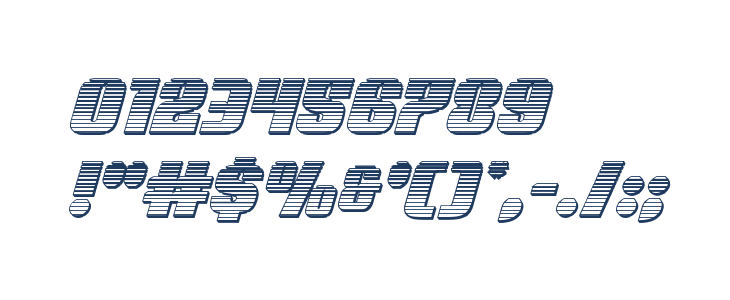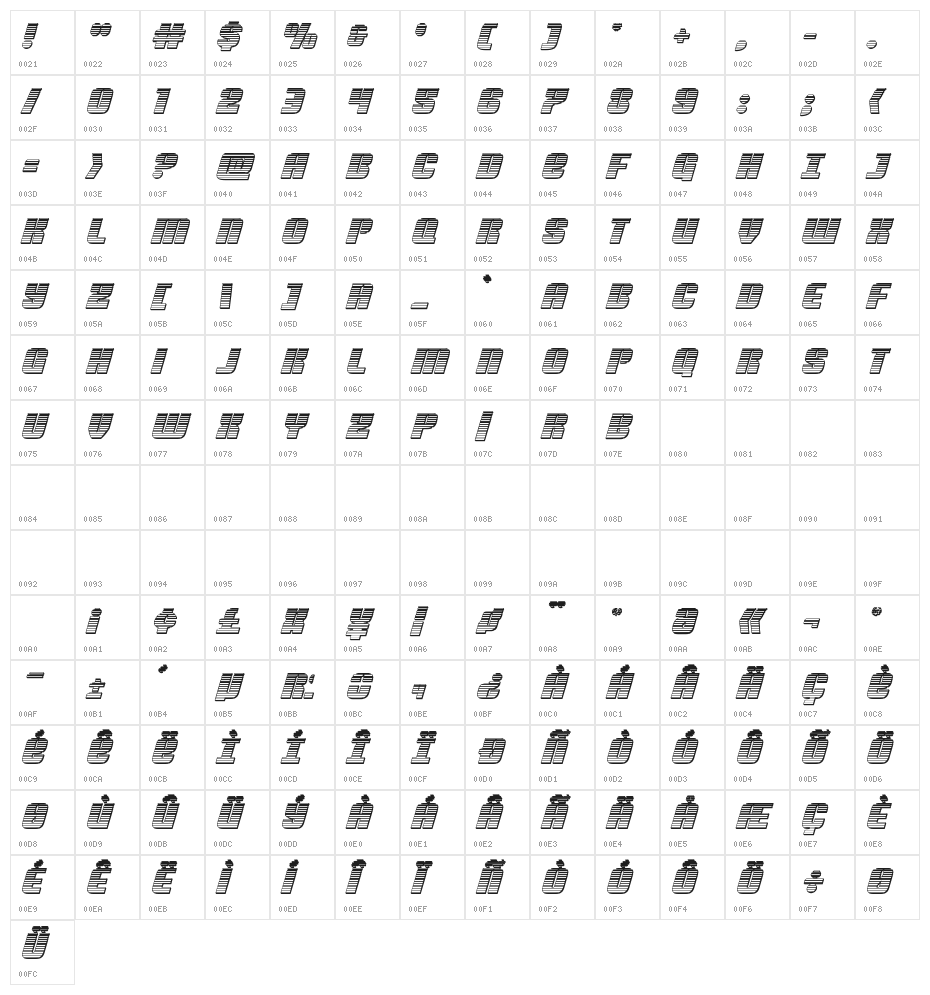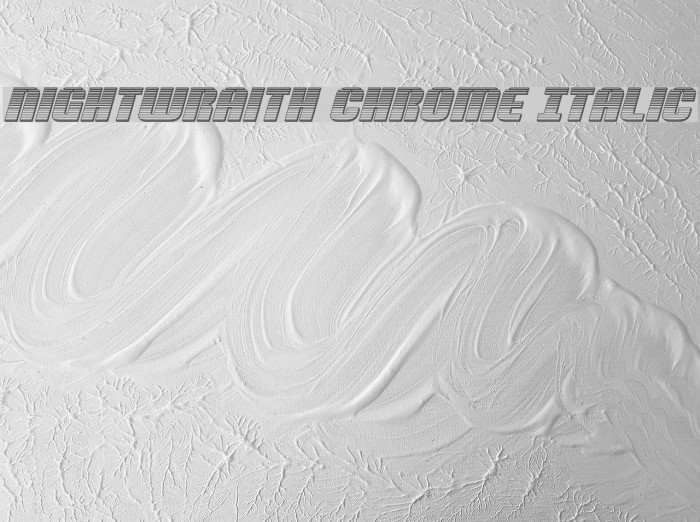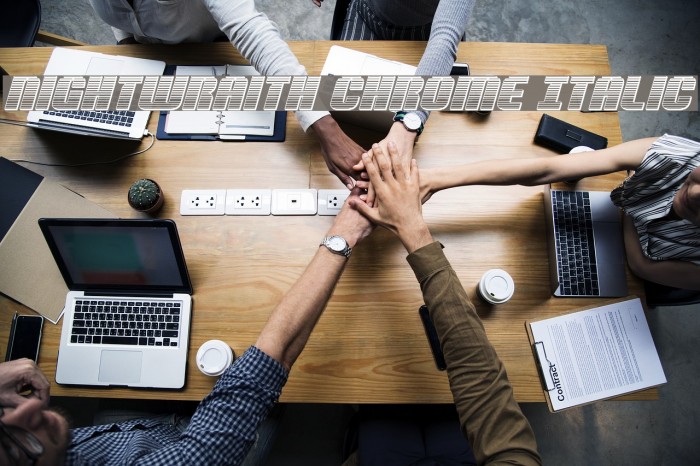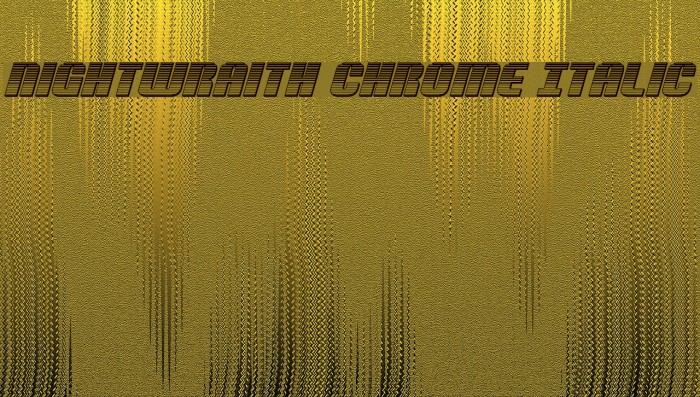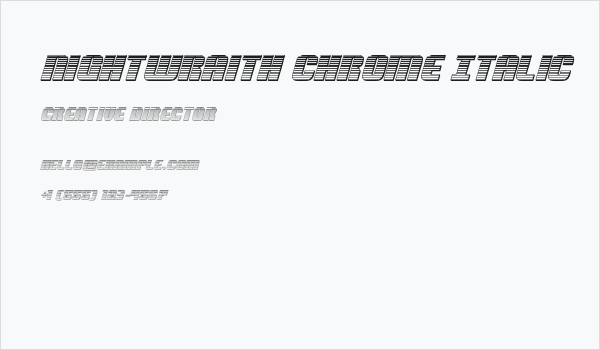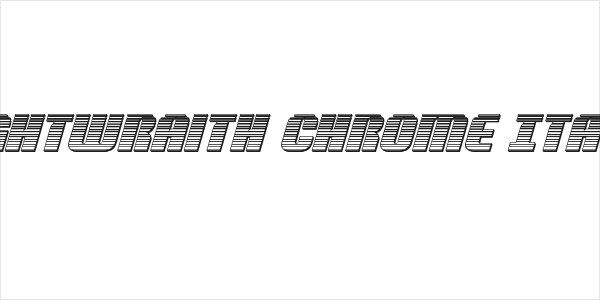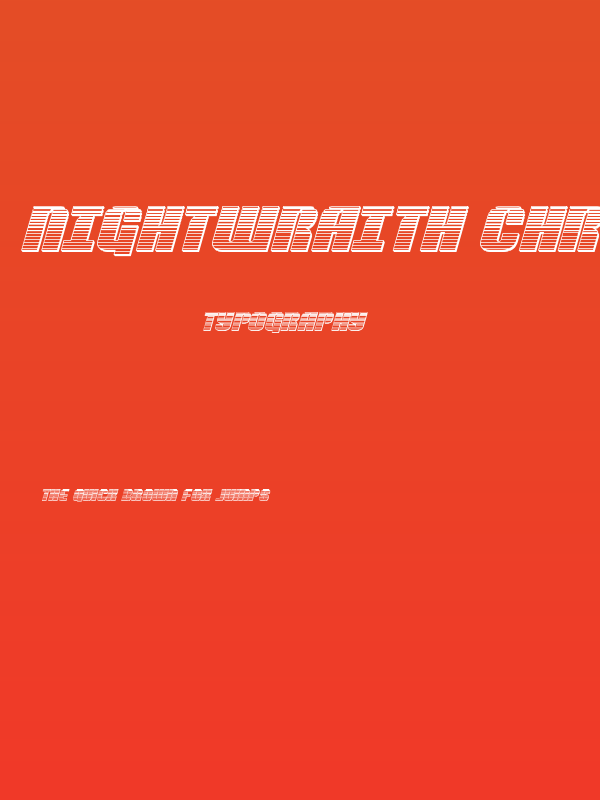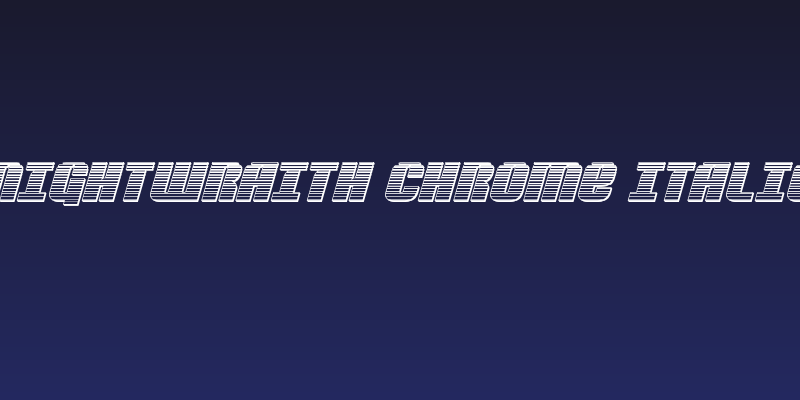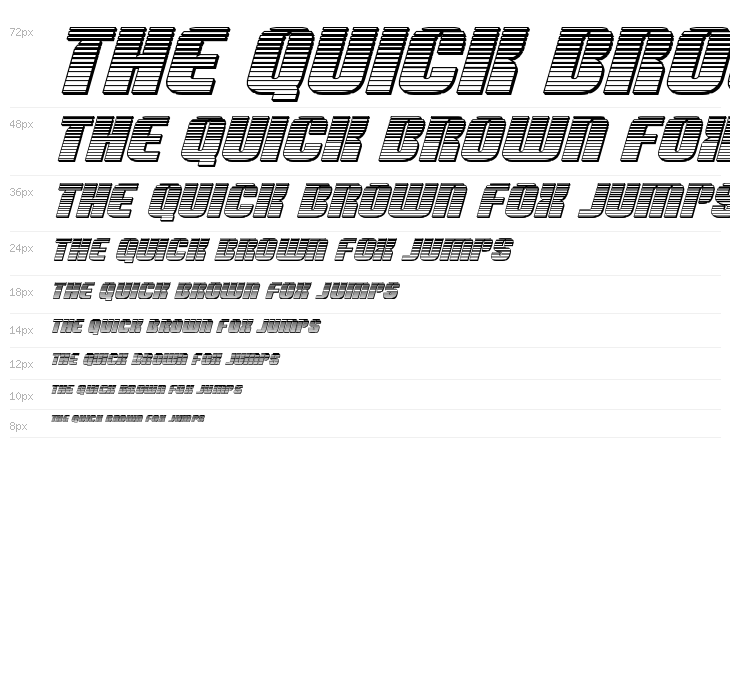
Nightwraith Chrome Italic Font
Nightwraith Chrome Italic Description
This font features a bold, italicized style with a distinct chrome-like appearance. The letters are constructed with horizontal lines that create a three-dimensional effect, giving the impression of depth and movement. The uppercase and lowercase letters maintain a consistent width, while the numbers and special characters follow the same stylistic approach. The overall design is dynamic and futuristic, making it suitable for projects that require a strong visual impact. The font's unique characteristics make it stand out, particularly in digital and print media where a modern, edgy look is desired.
| Proposed Projects | Ideal for futuristic designs, tech branding, video game titles, and dynamic posters. |